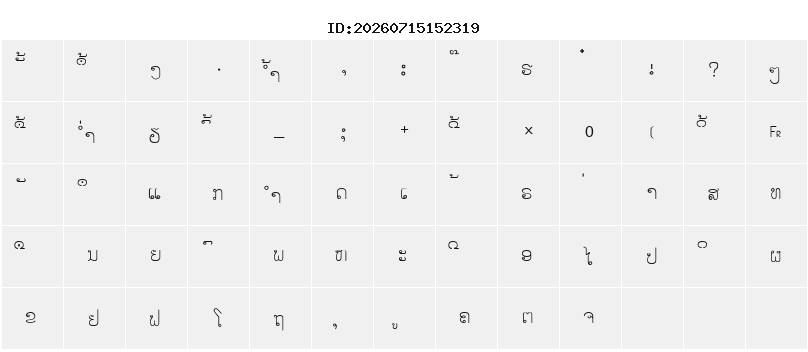
alice_0 Preview
• Font Name: alice_0
• Full Font Name: alice_0 Medium
About alice_0.ttf
alice_0.ttf is a modern, elegant sans-serif font designed for ultimate readability and visual harmony. Perfect for branding, headlines, web design, and print materials.